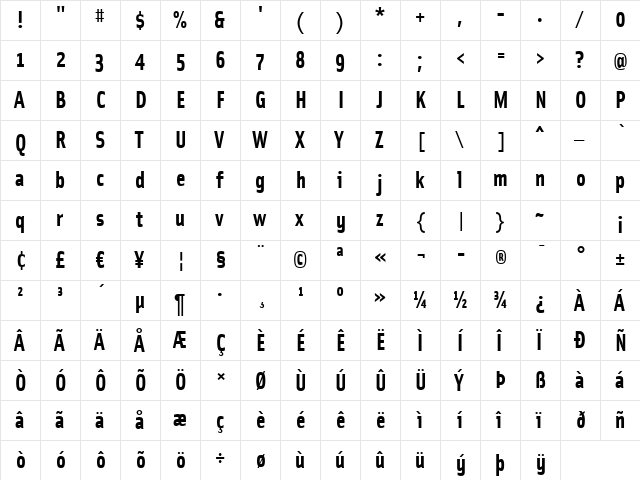
SolexBold Regular
| Foundry | Emigre Inc. |
| Designer | Zuzana Licko |
Design Context for SolexBold Typeface
SolexBold is a composed and adaptable typeface that performs quietly and consistently across a wide range of design contexts. Its bold stroke weight gives it real presence on the page.